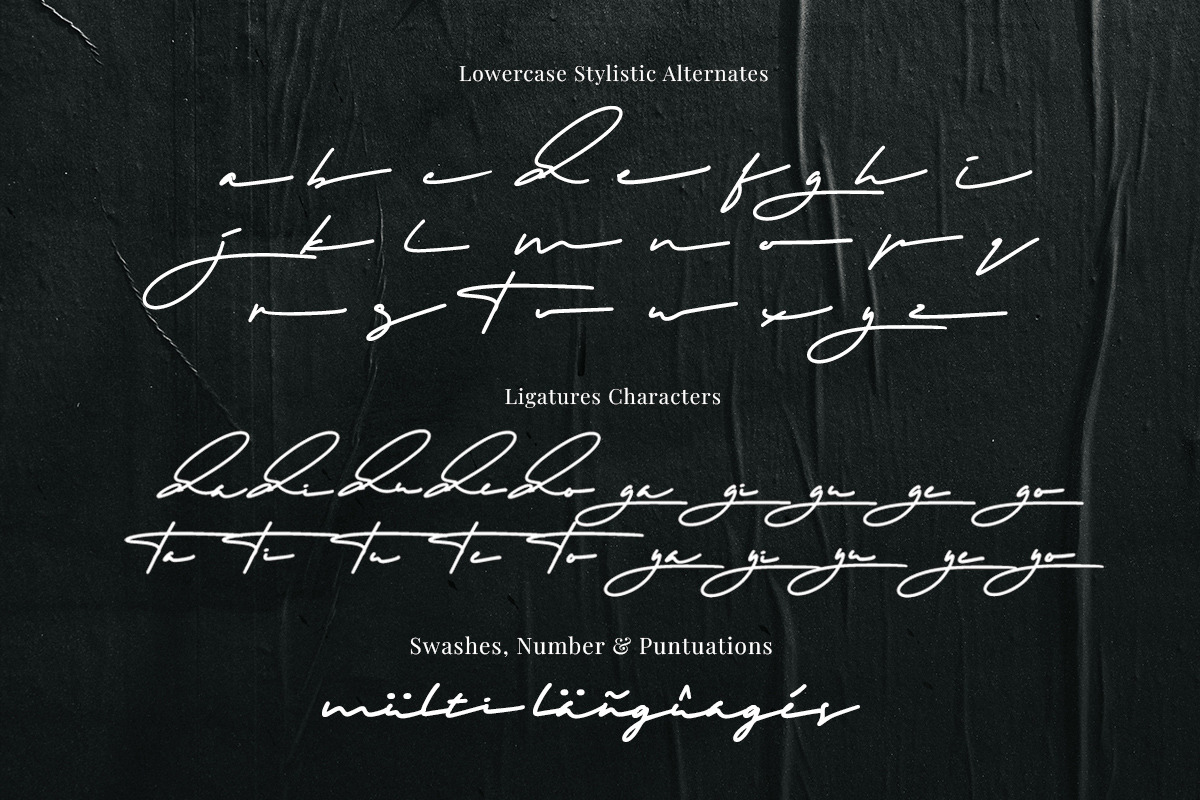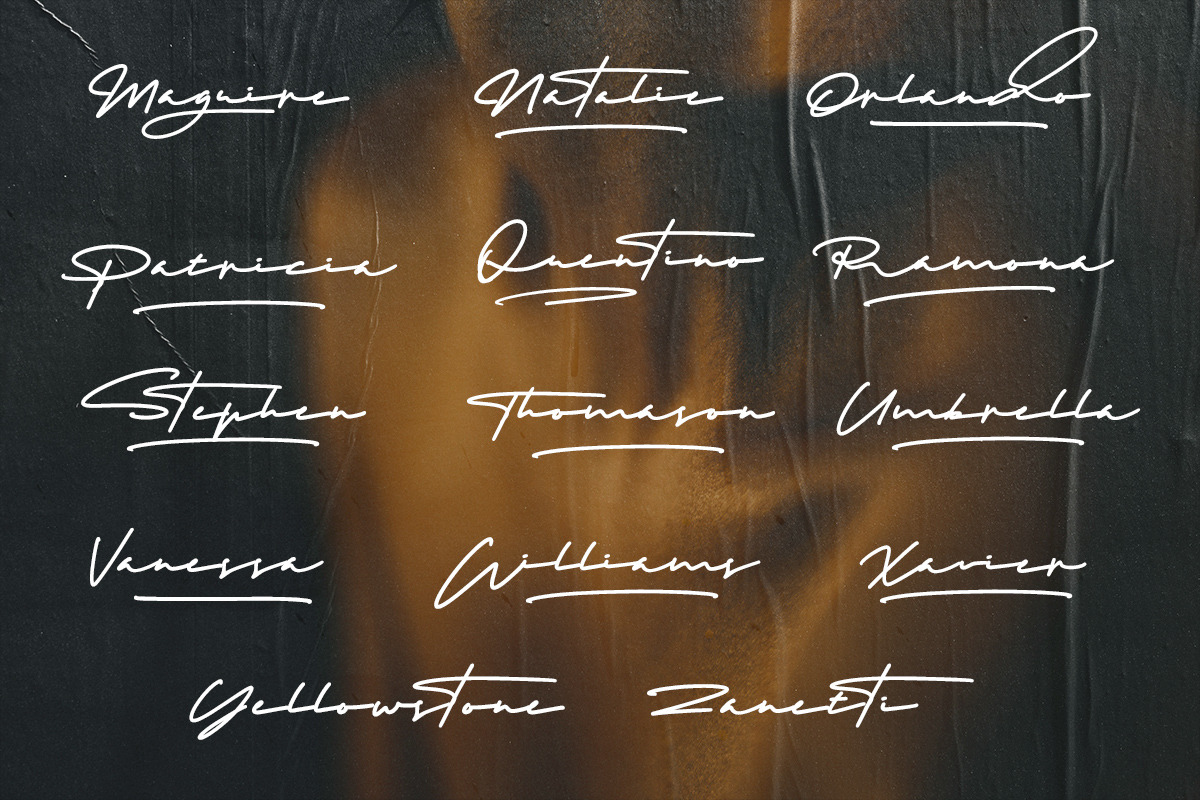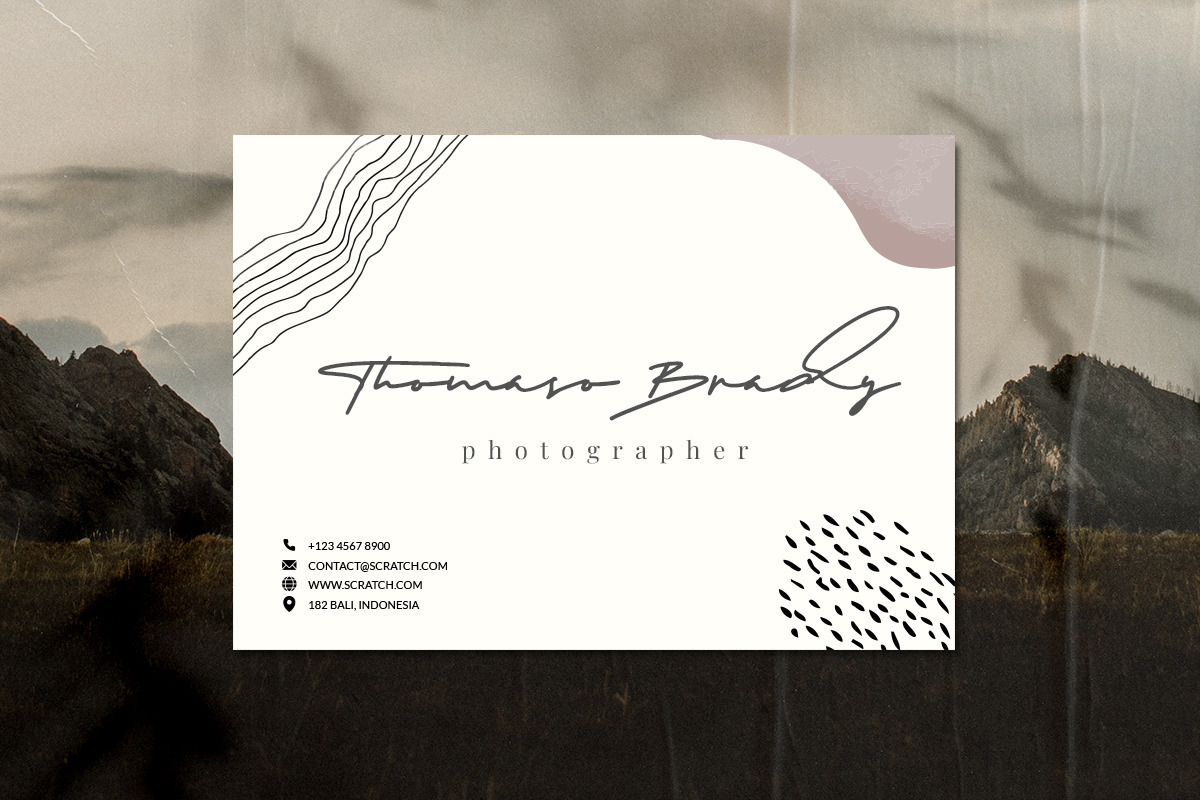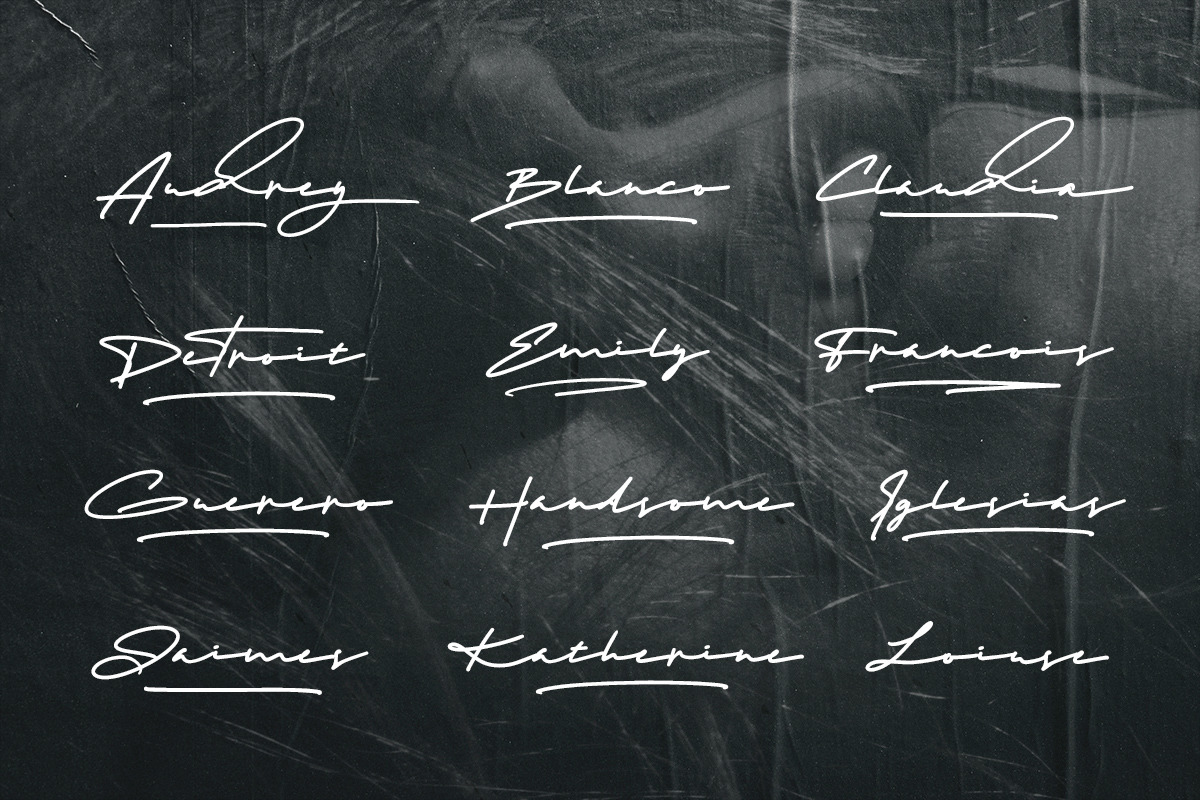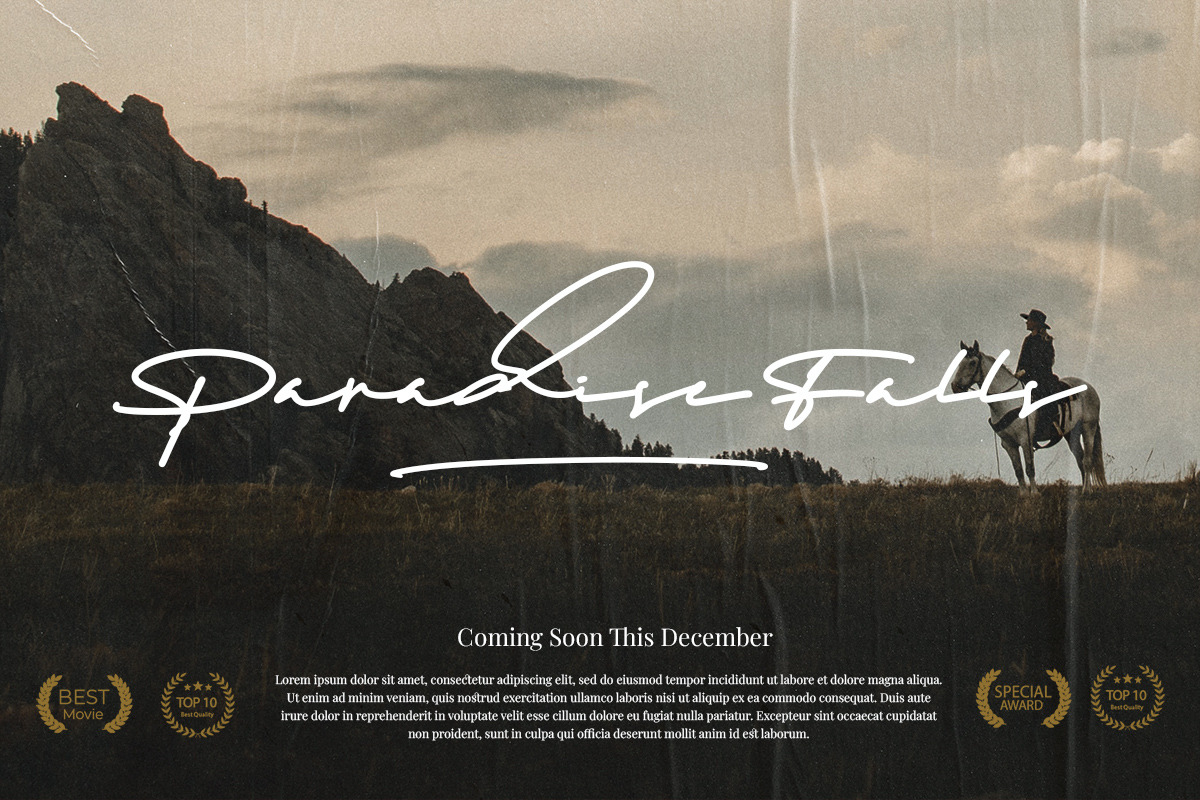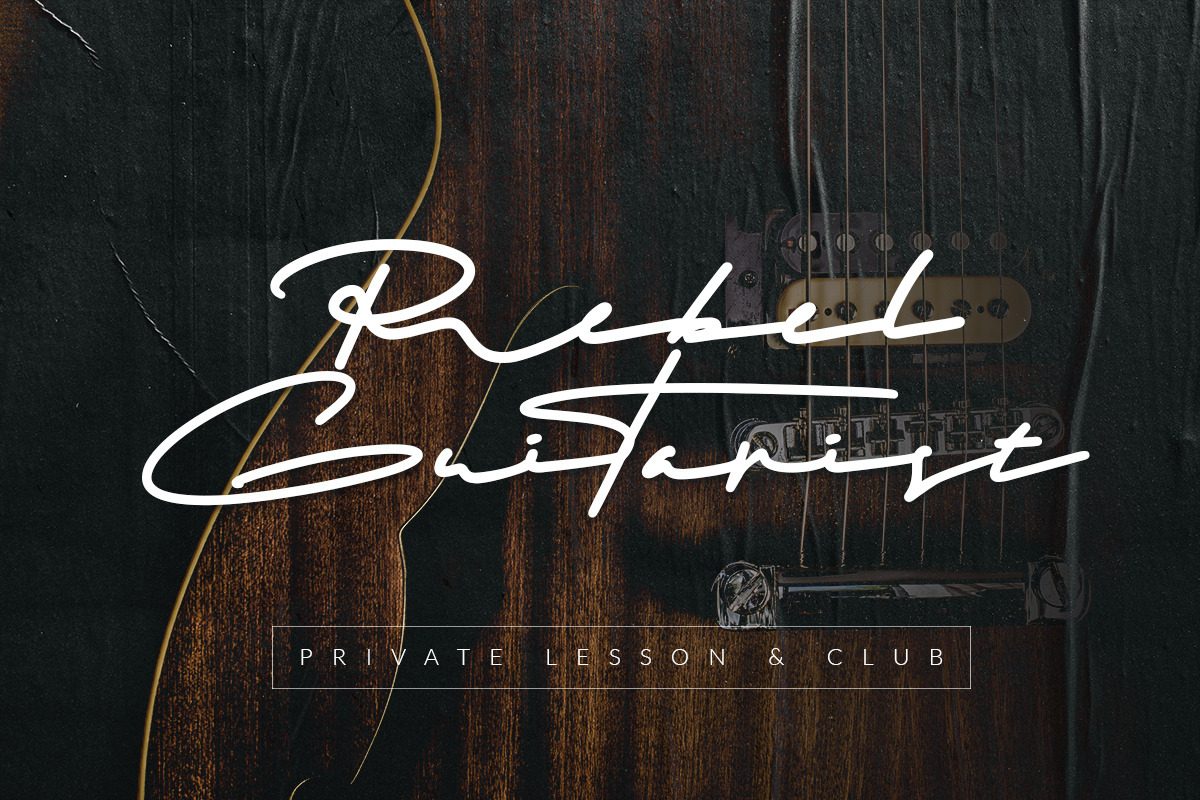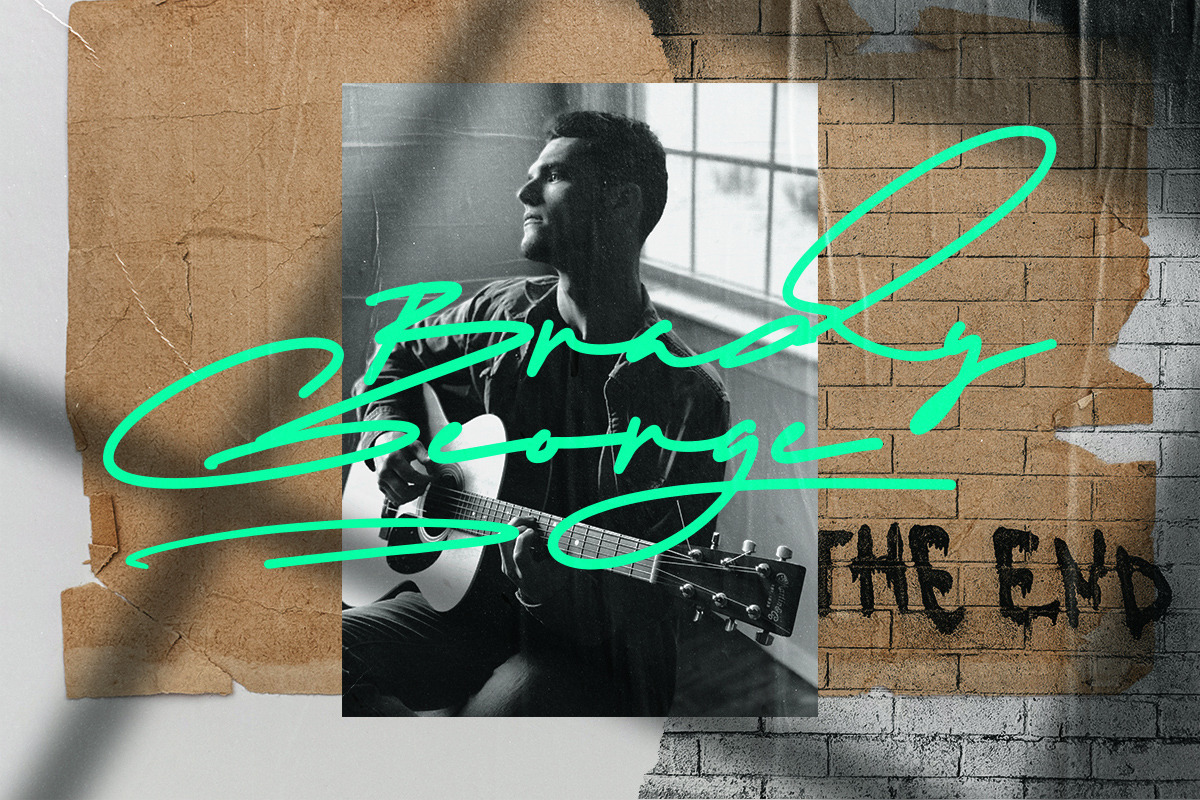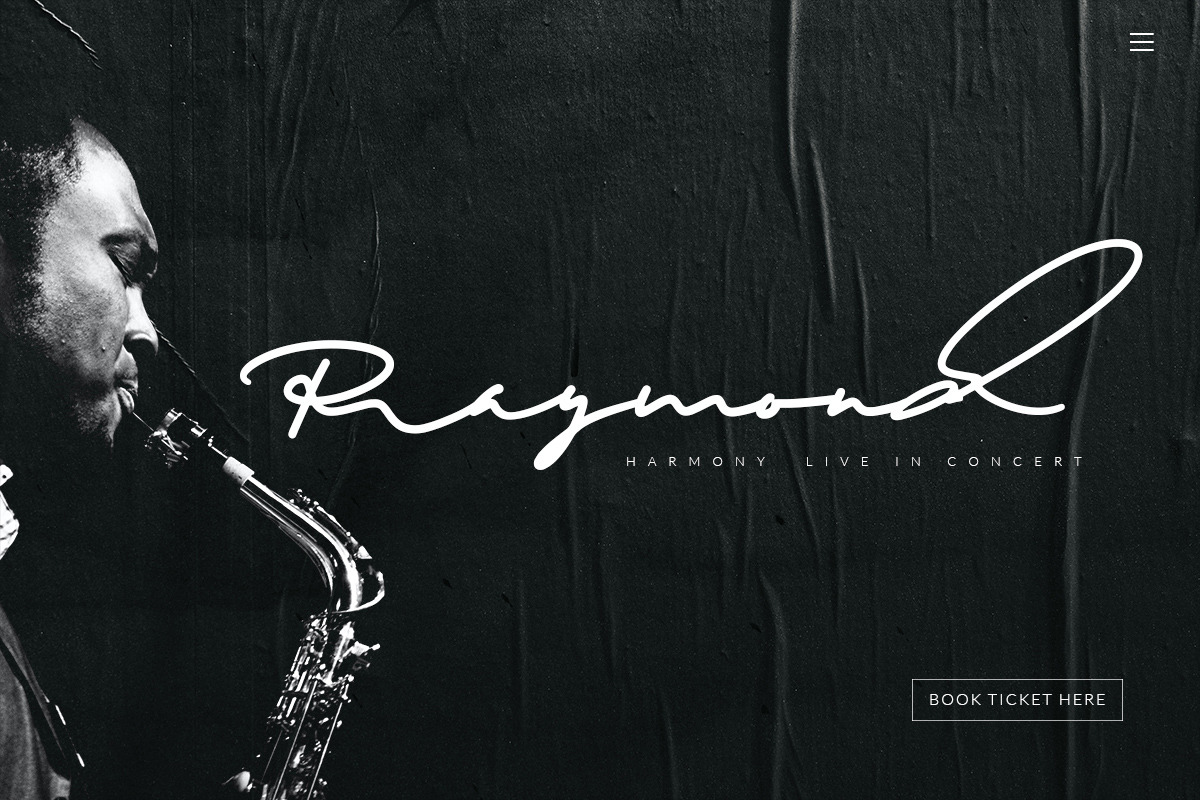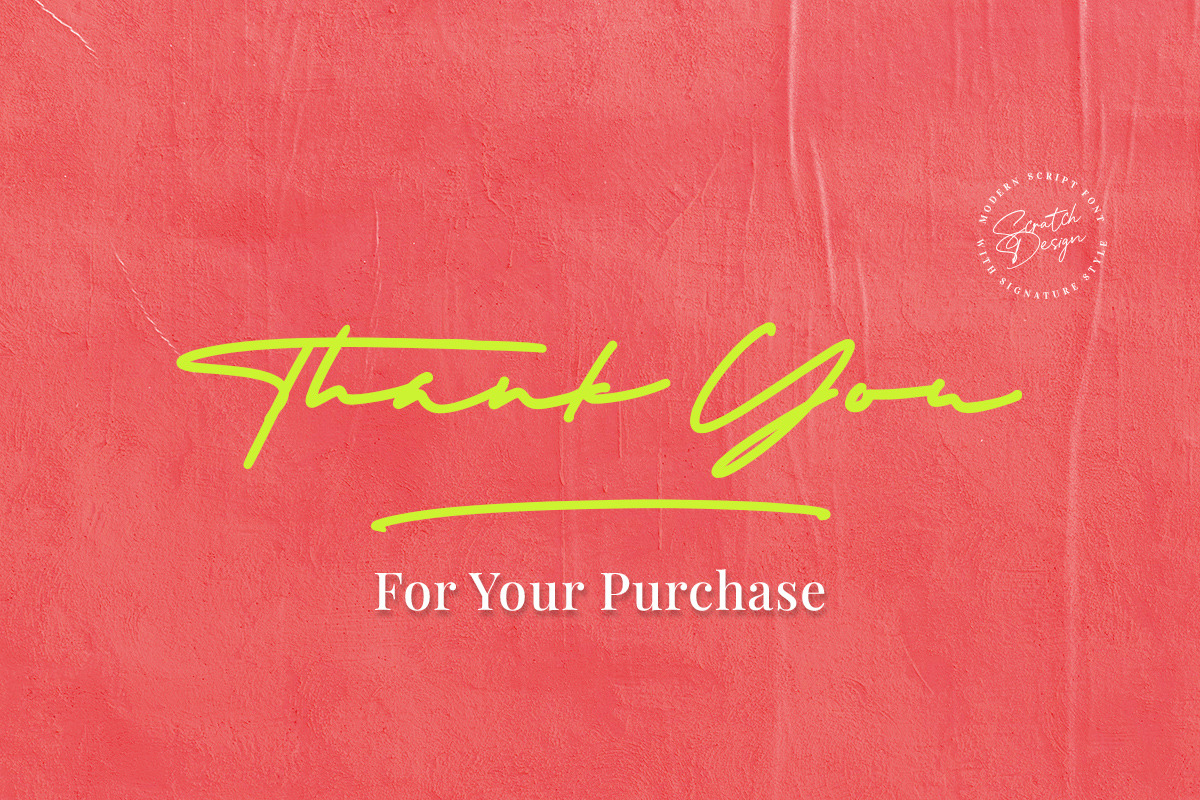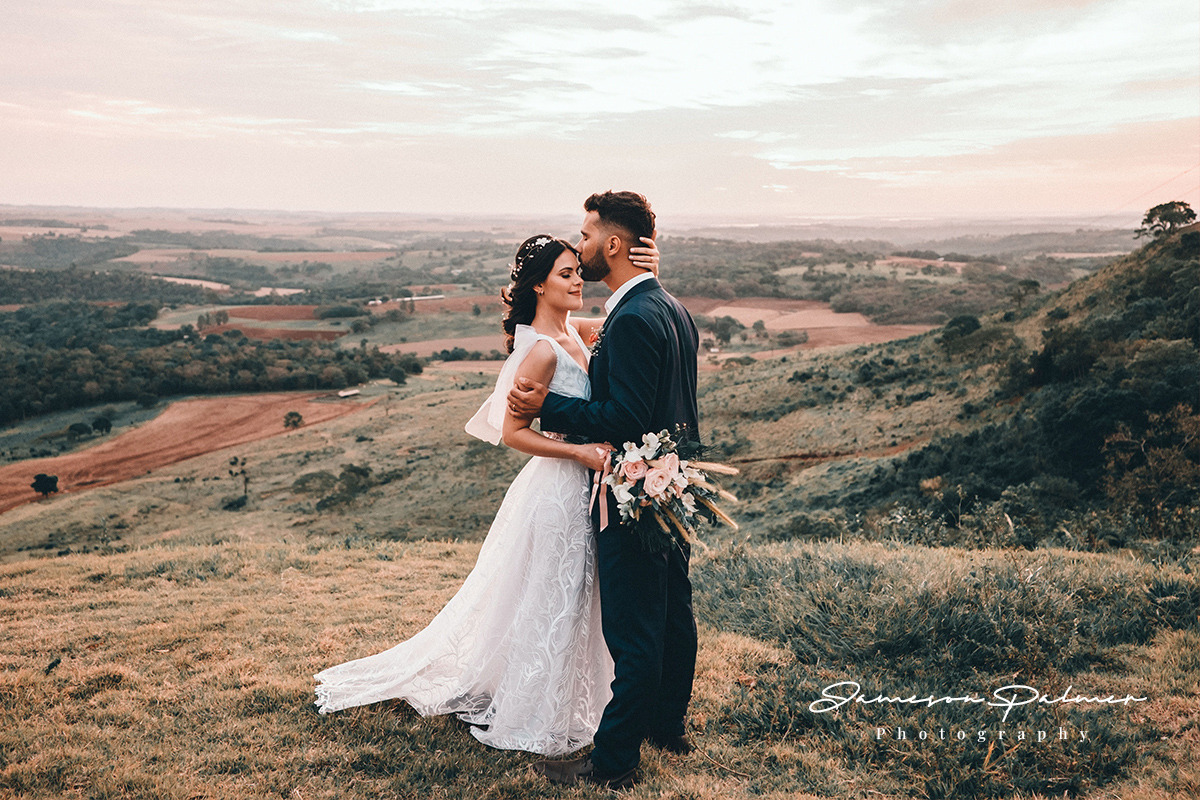
Gradation - Realistic Signature
Introducing 'Gradation" is a realistic signature font style. Gradation font is perfect for you to make a realistic signature, it's so easy to use and you can combine it with the swashes to make your signature more real & natural. Gradation will be perfect for different projects such as logos & branding, wedding invitation designs, social media posts, advertisements, website & landing page, product packaging, product designs, label, photography, and watermark. Gradation has a modern shape and comes with a monoline stroke that will make your signature look clean and luxurious.